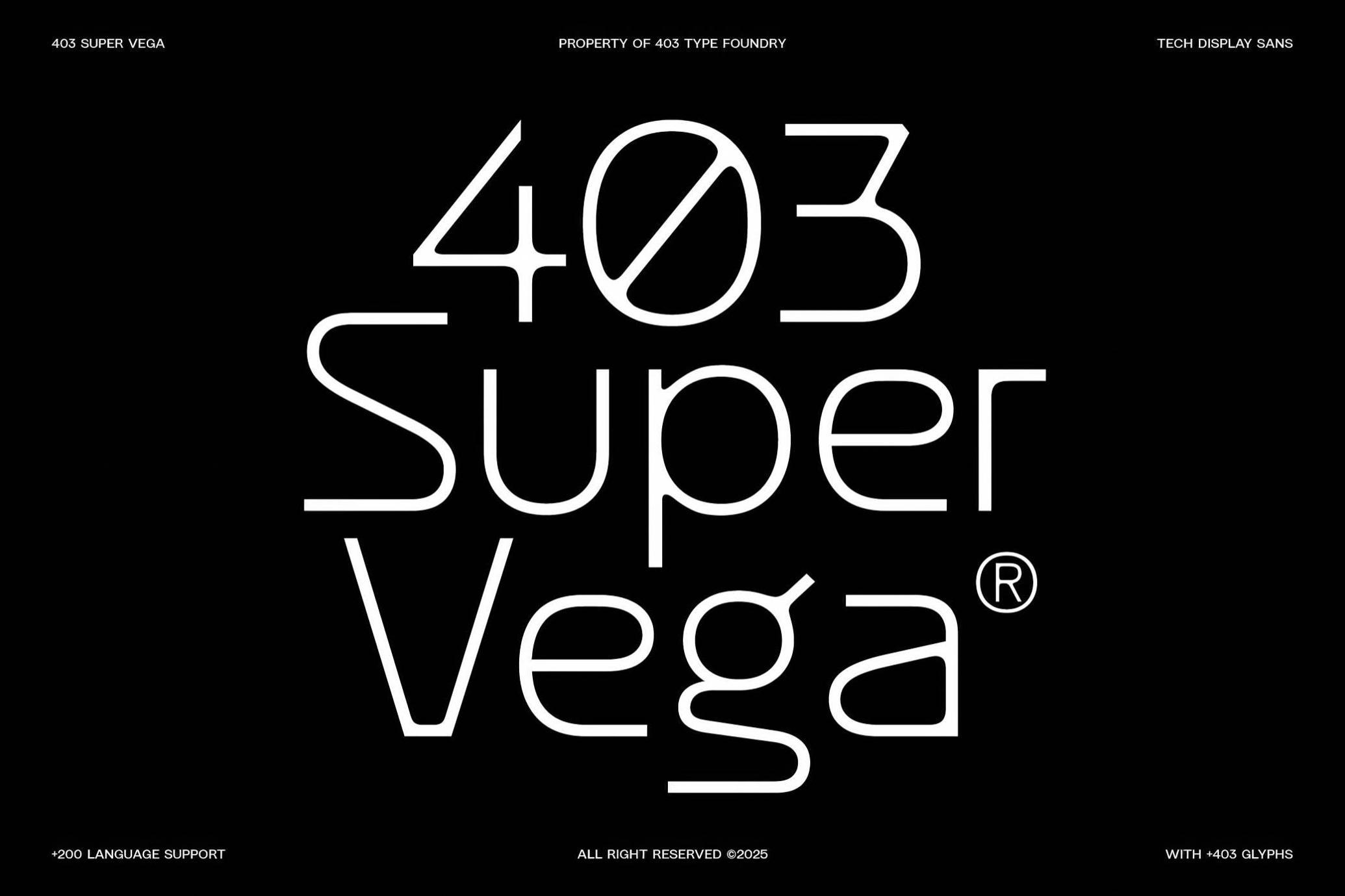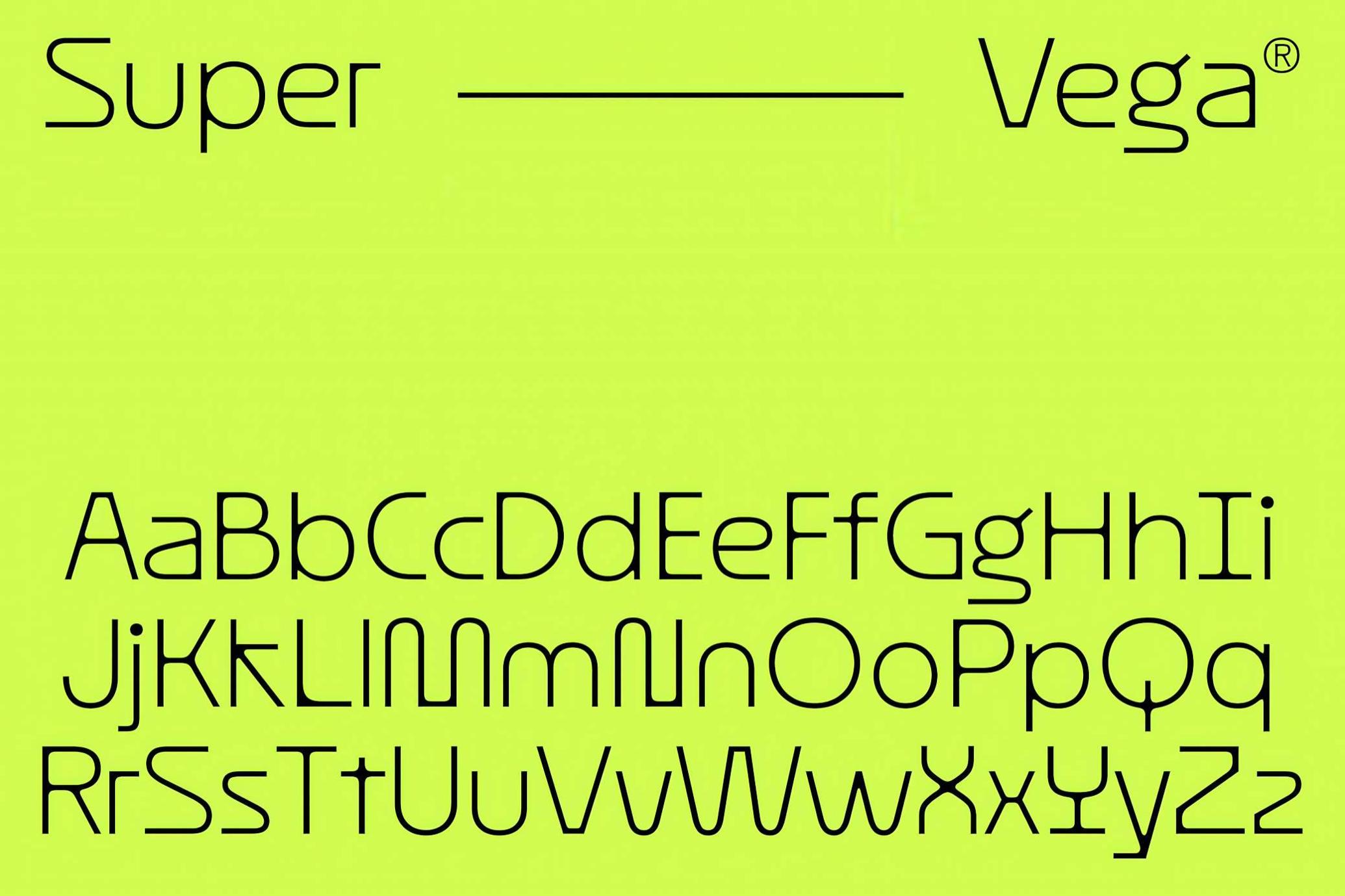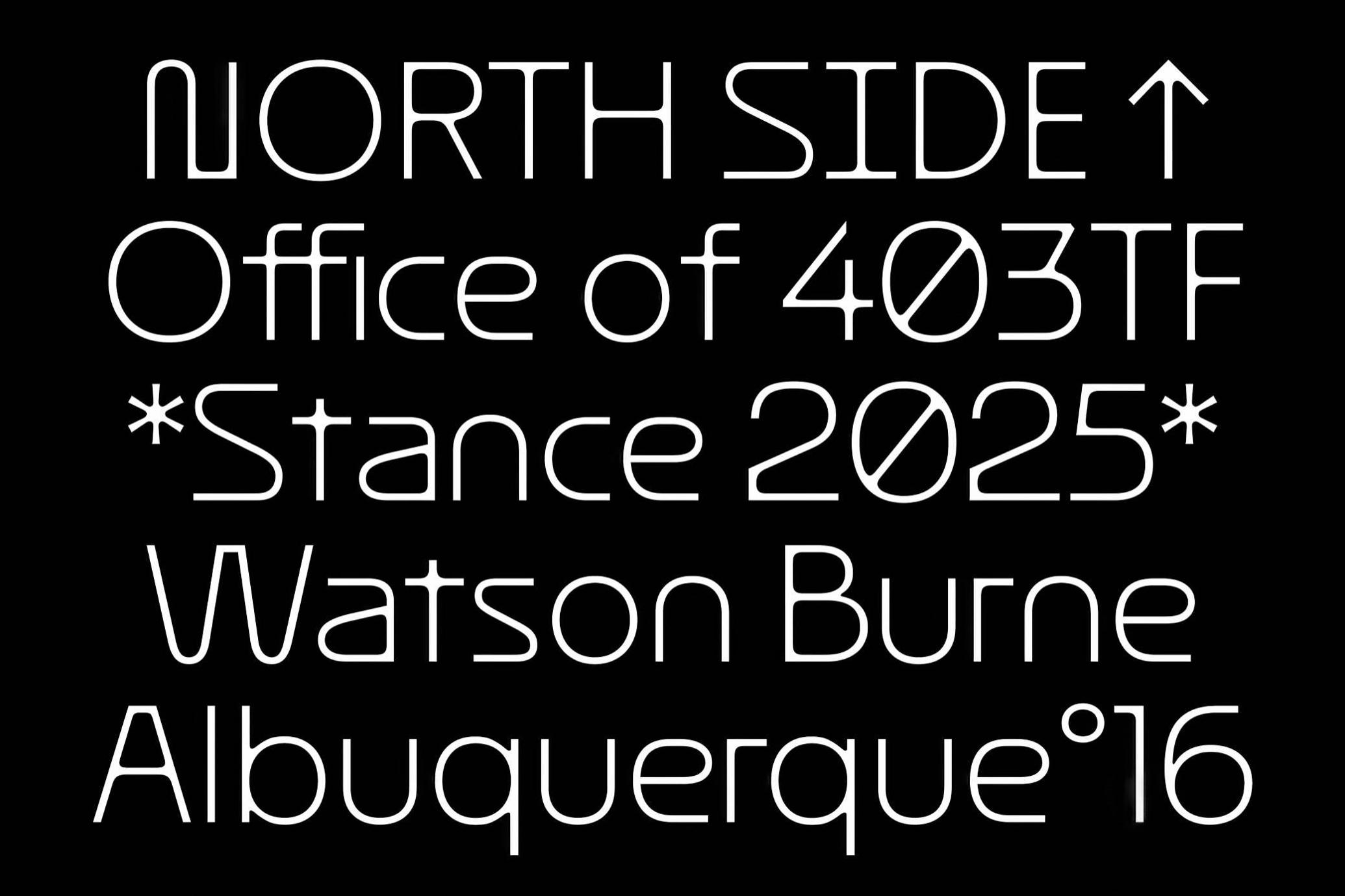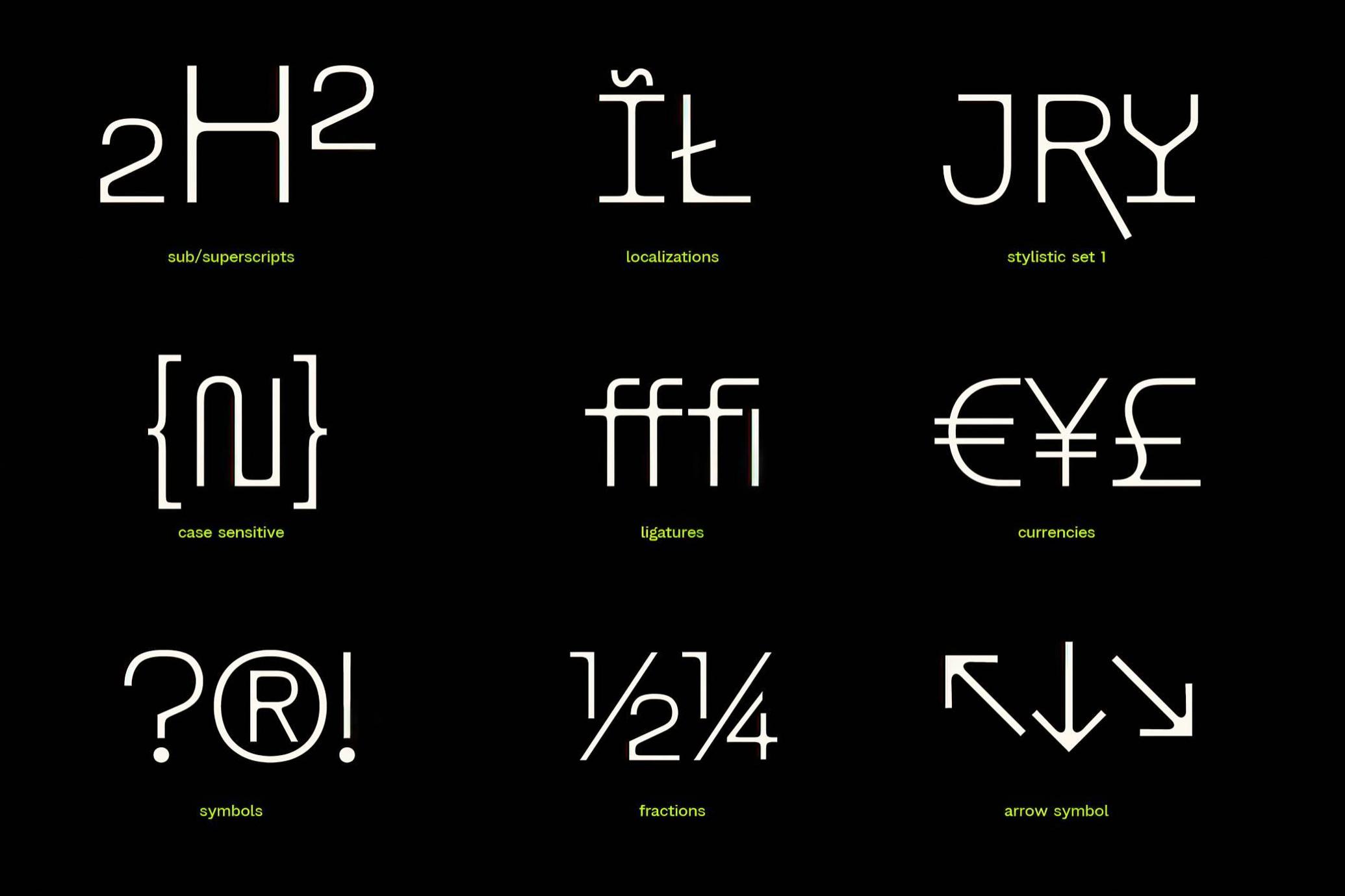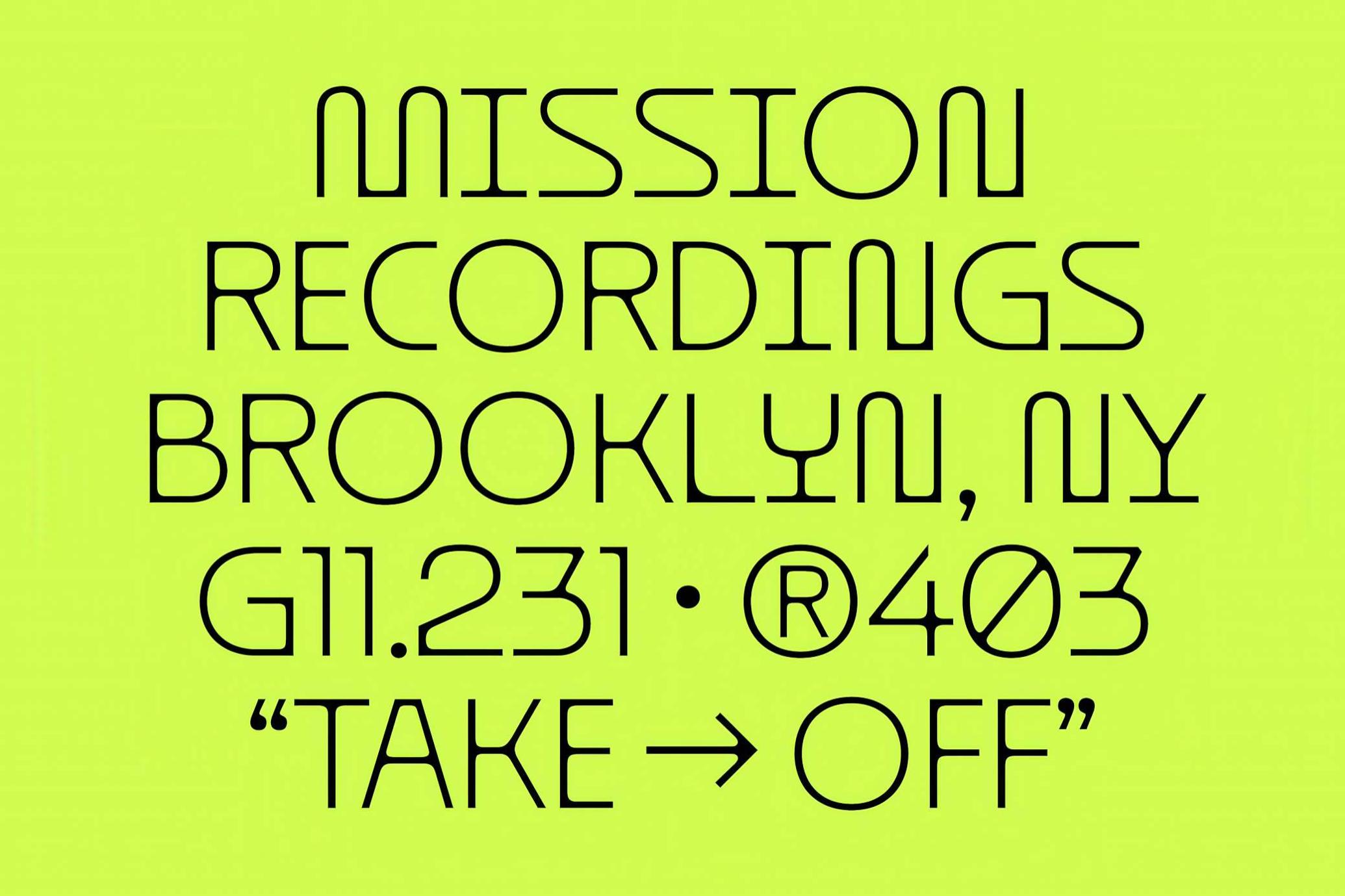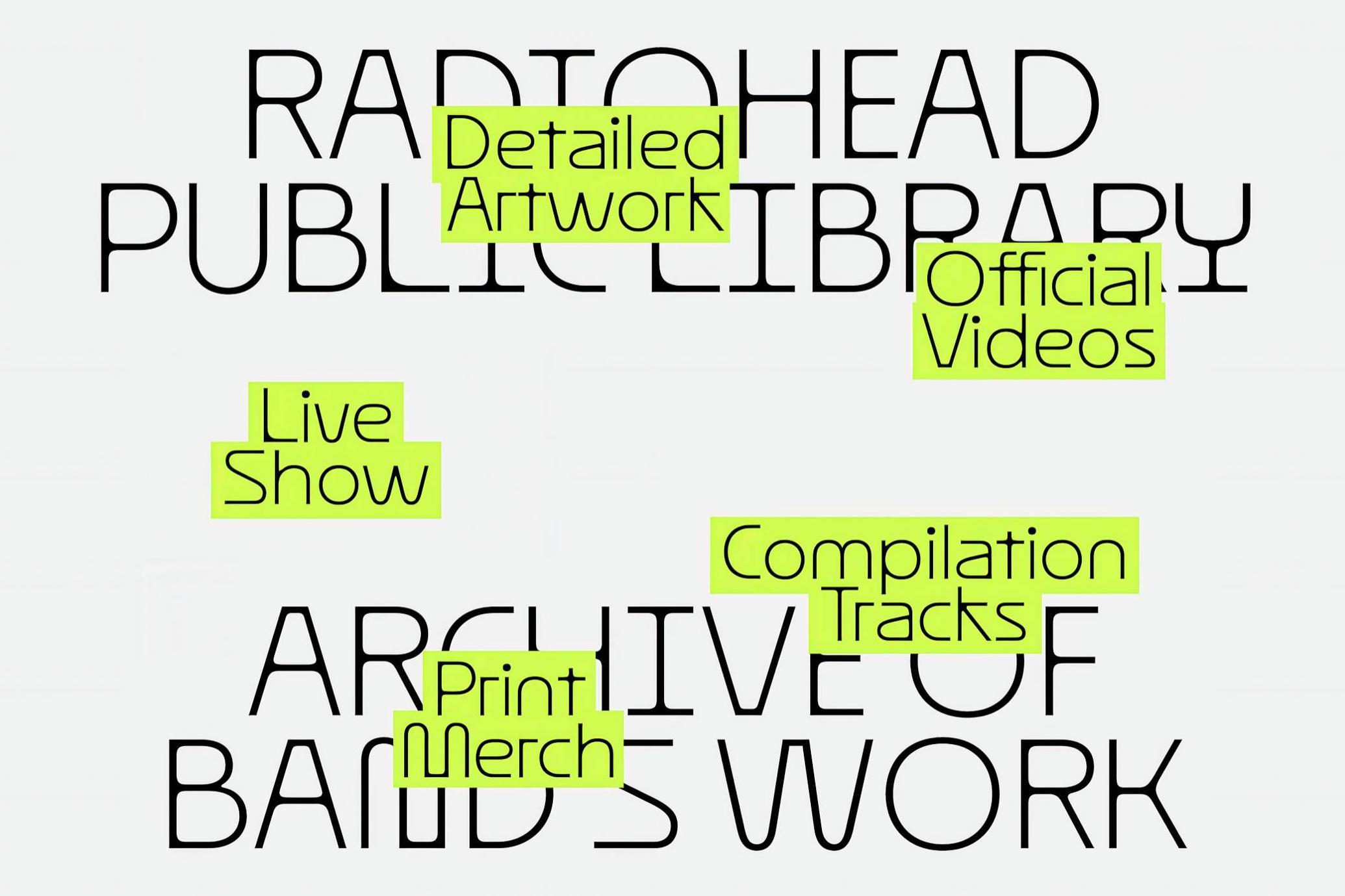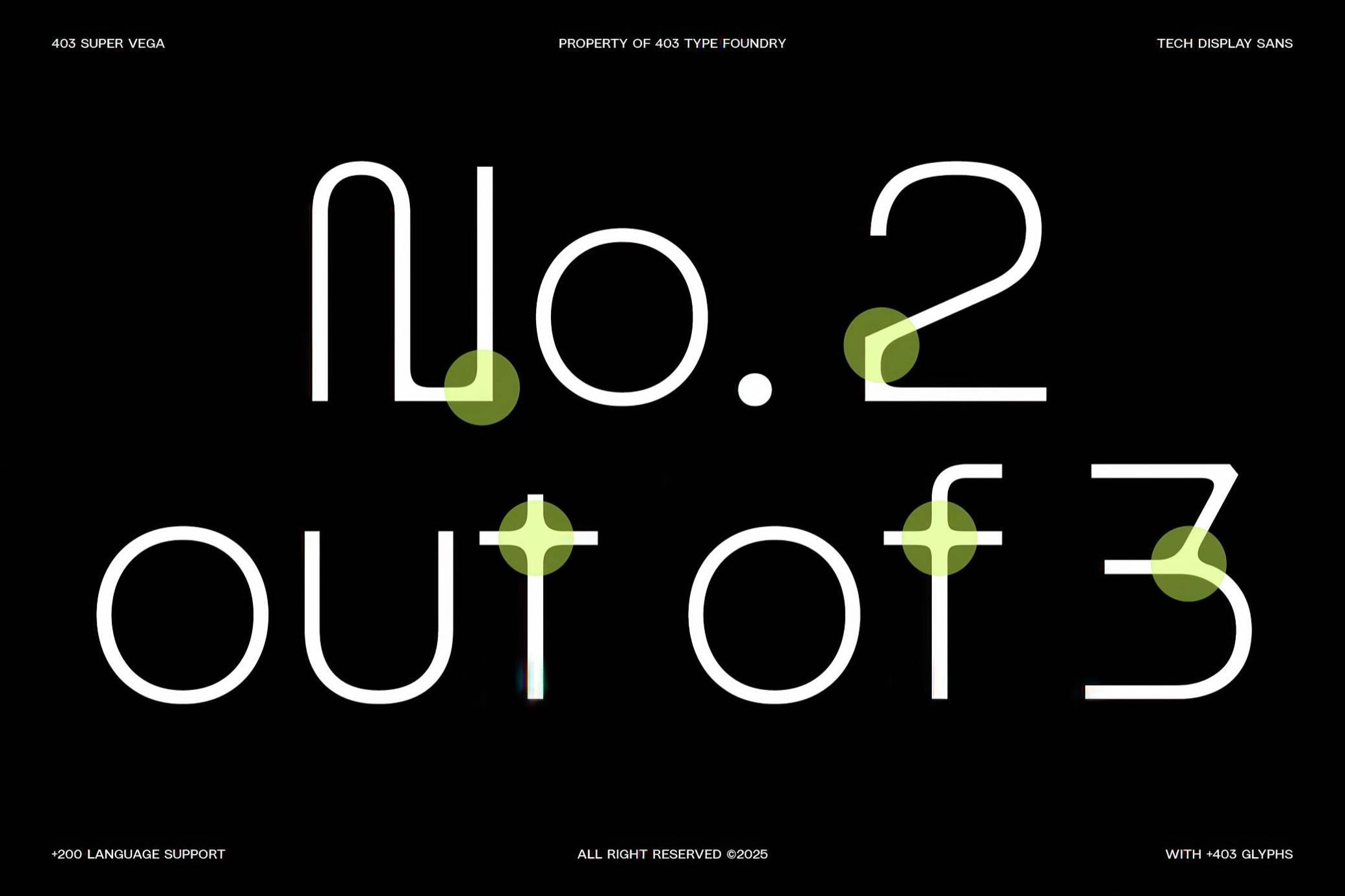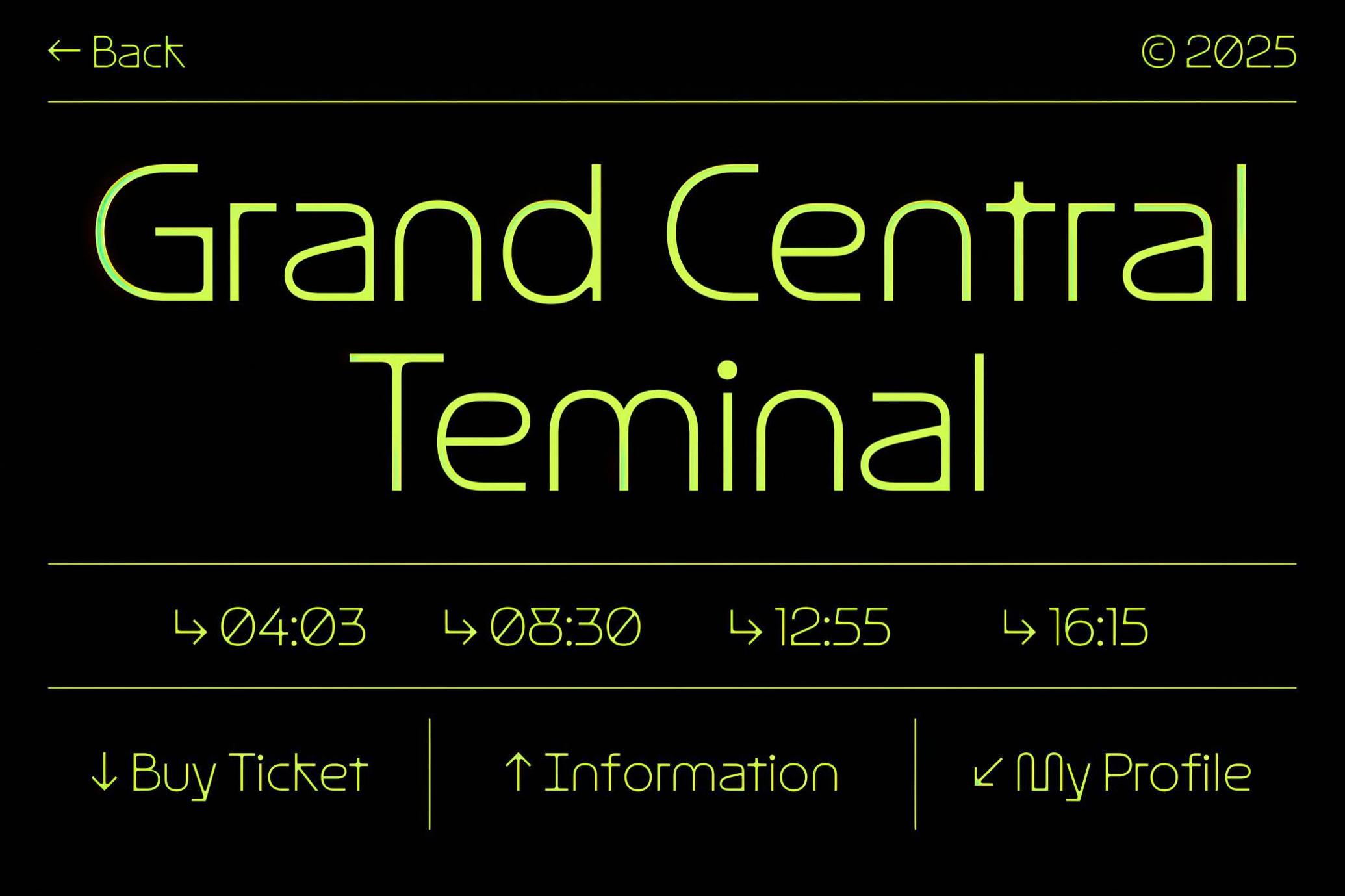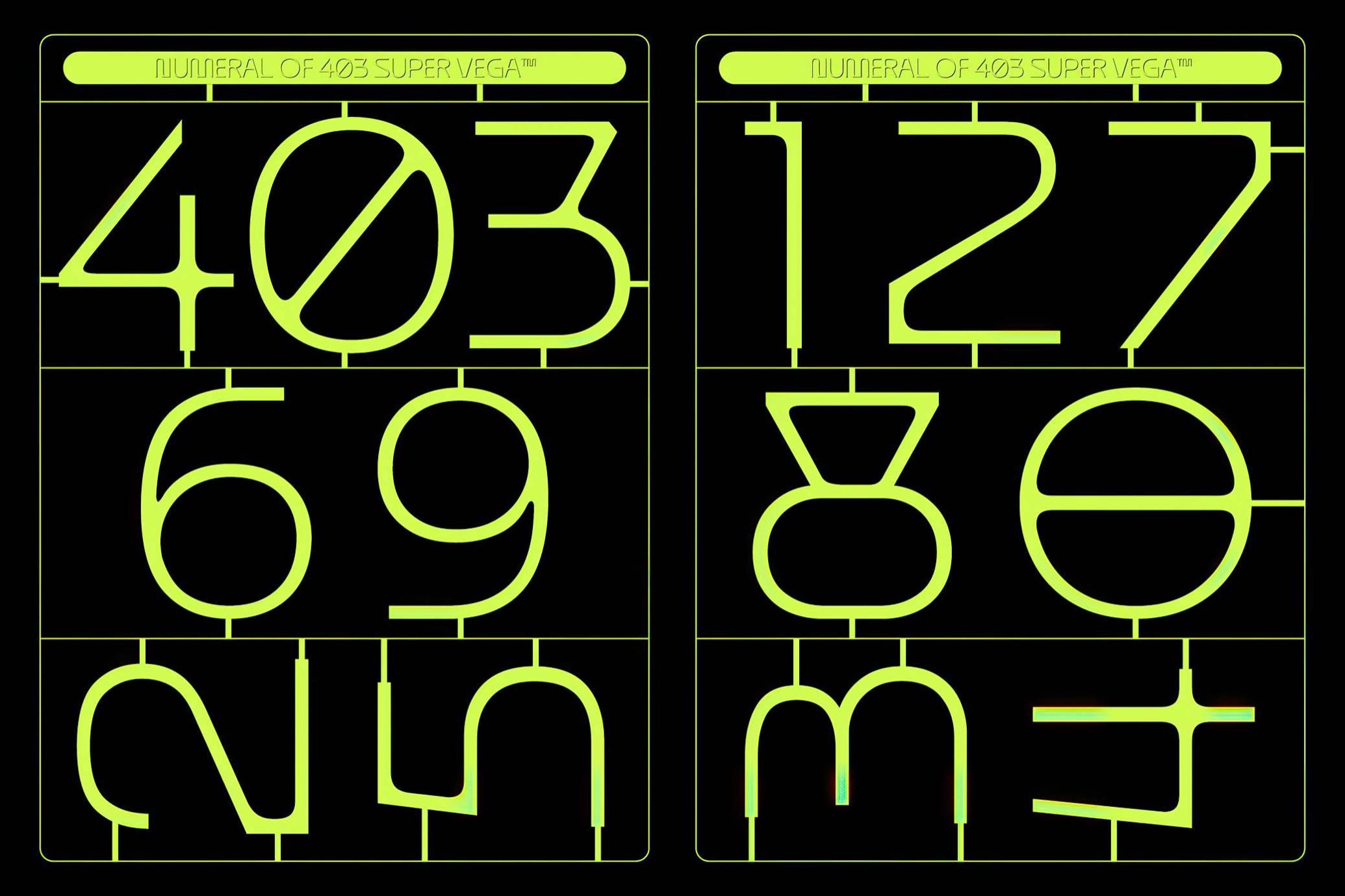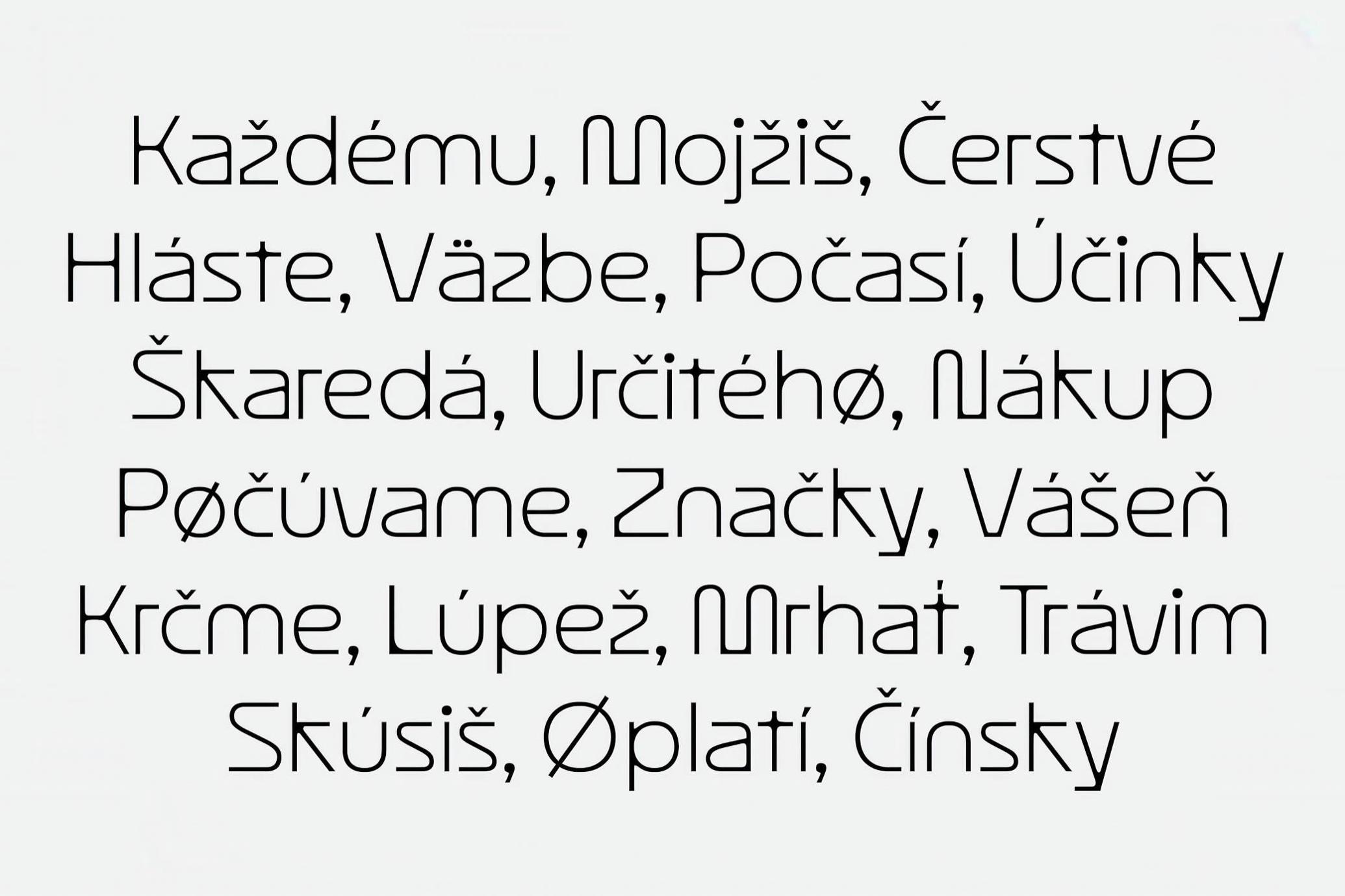
403 Super Vega Sans Serif
403 Super Vega is a high-impact brutalist display font with a strong dose of retro-futurism and Eastern European industrialism. It combines the rigid geometry of Soviet-era signage, monospace engineering labels, and arcade tech interfaces, resulting in a utilitarian and experimental aesthetic. It's available in two styles, regular and slanted, both featuring sparkling space race-era optimism plus early computing culture — and ready to pop in music visuals, cyberpunk branding, alternative fashion lookbooks, editorial design, and even outdoor signage and direction signs. The ultimate readability decides, and the complete character set (multilingual characters included) confirms the right choice.